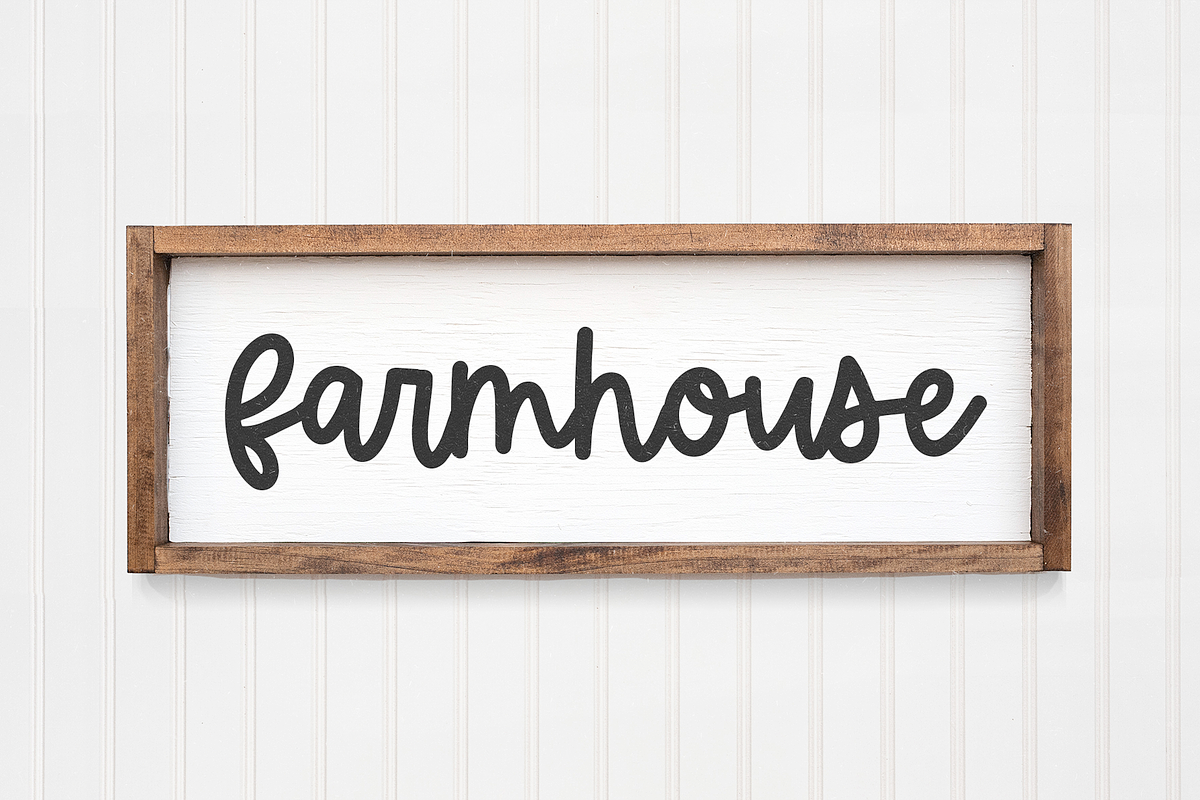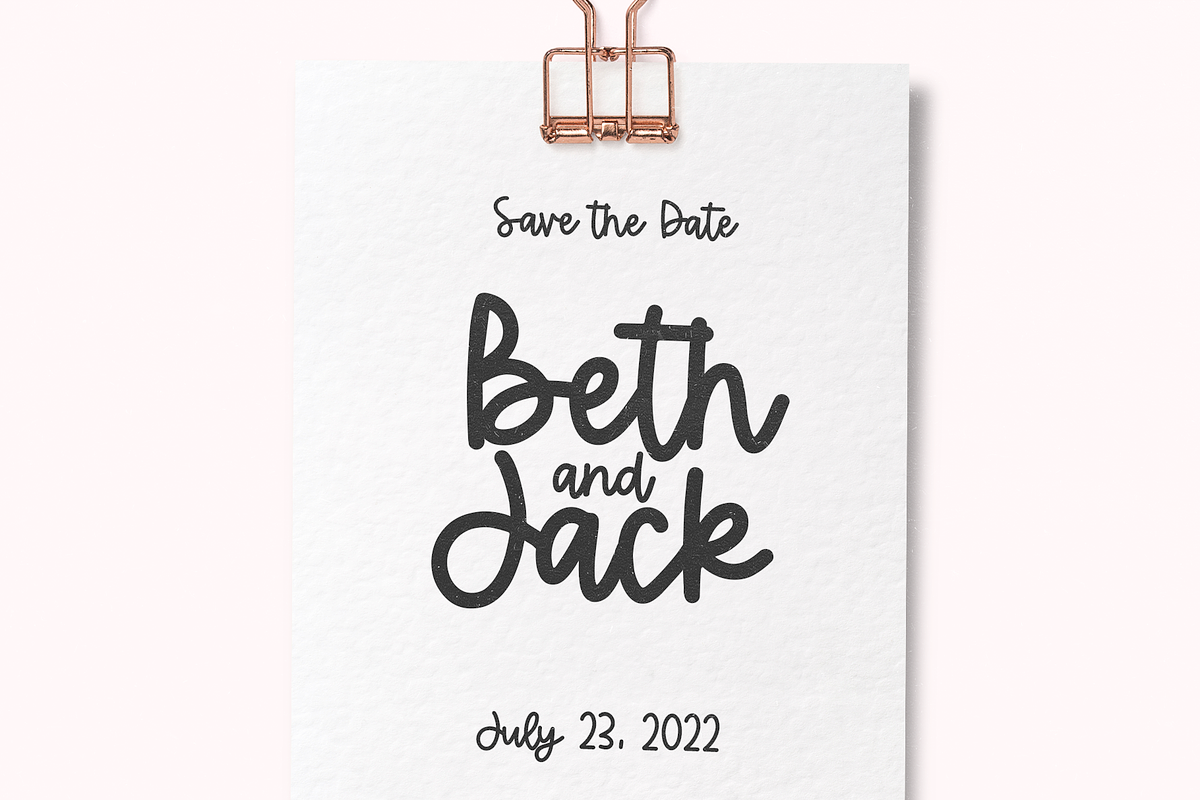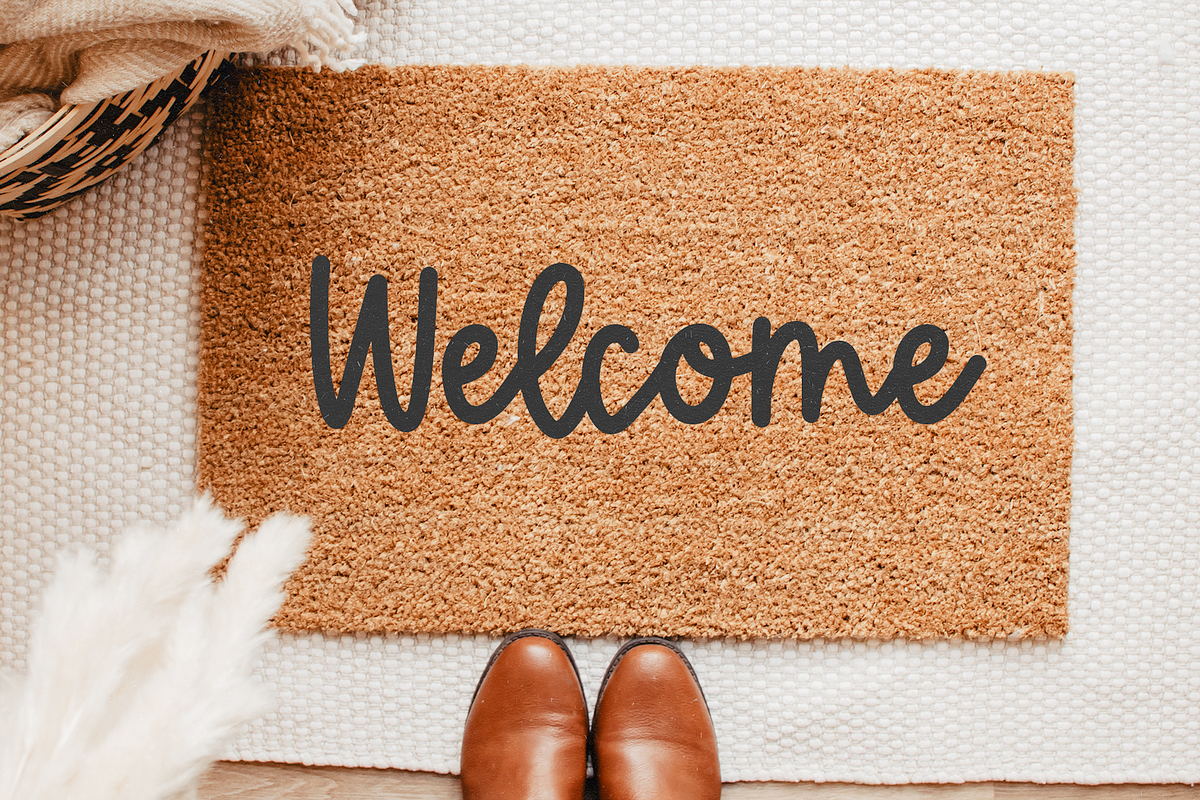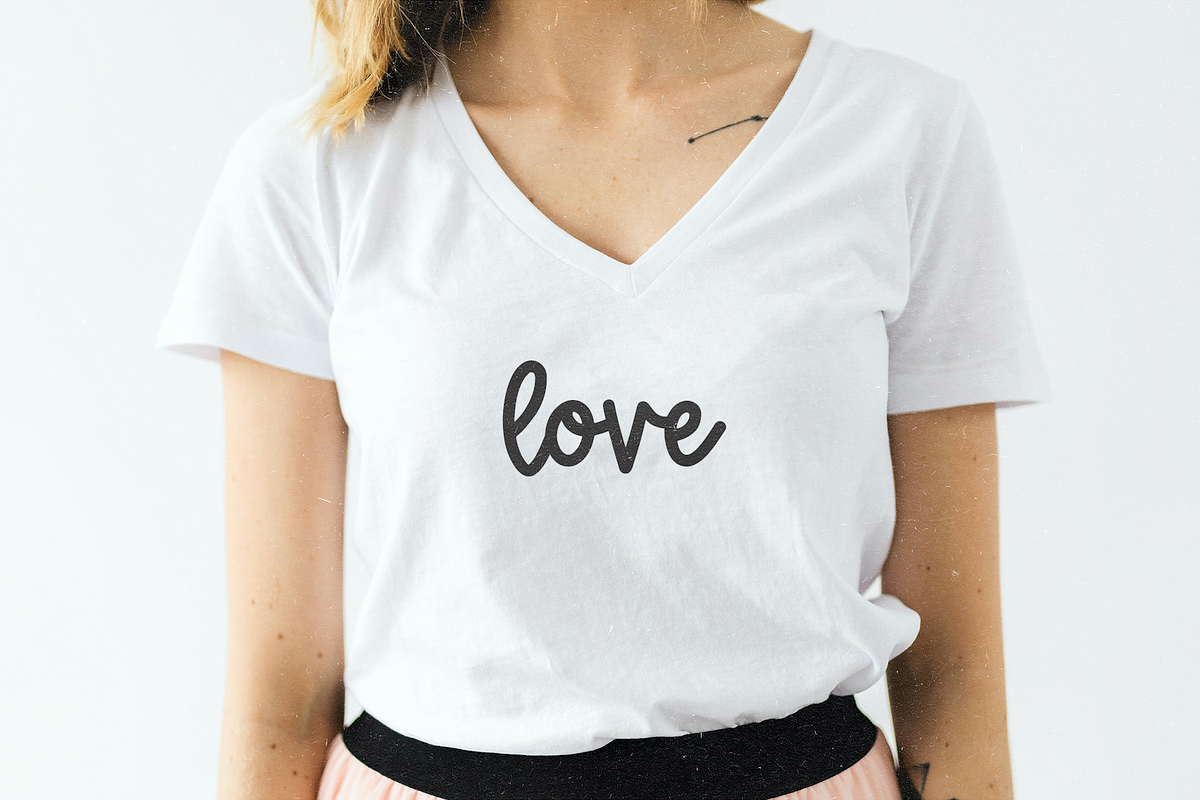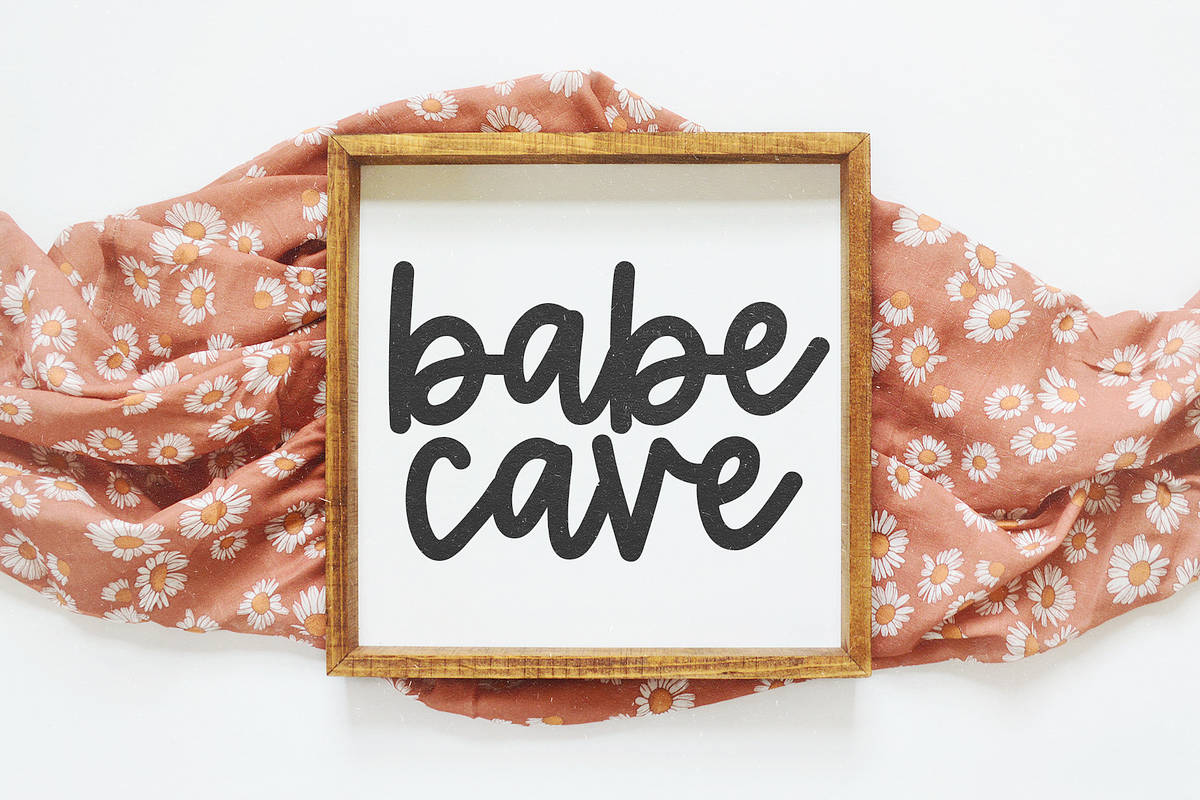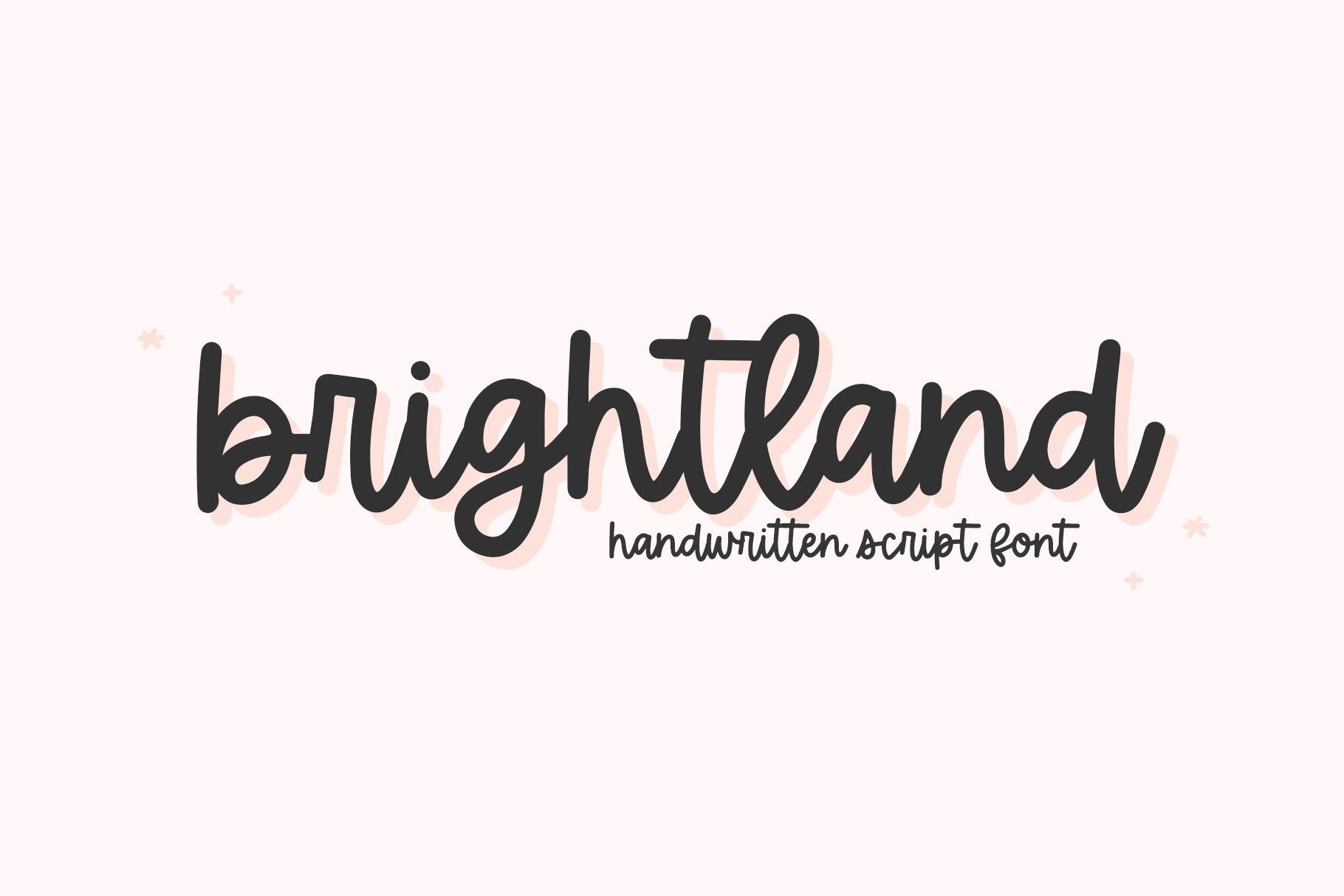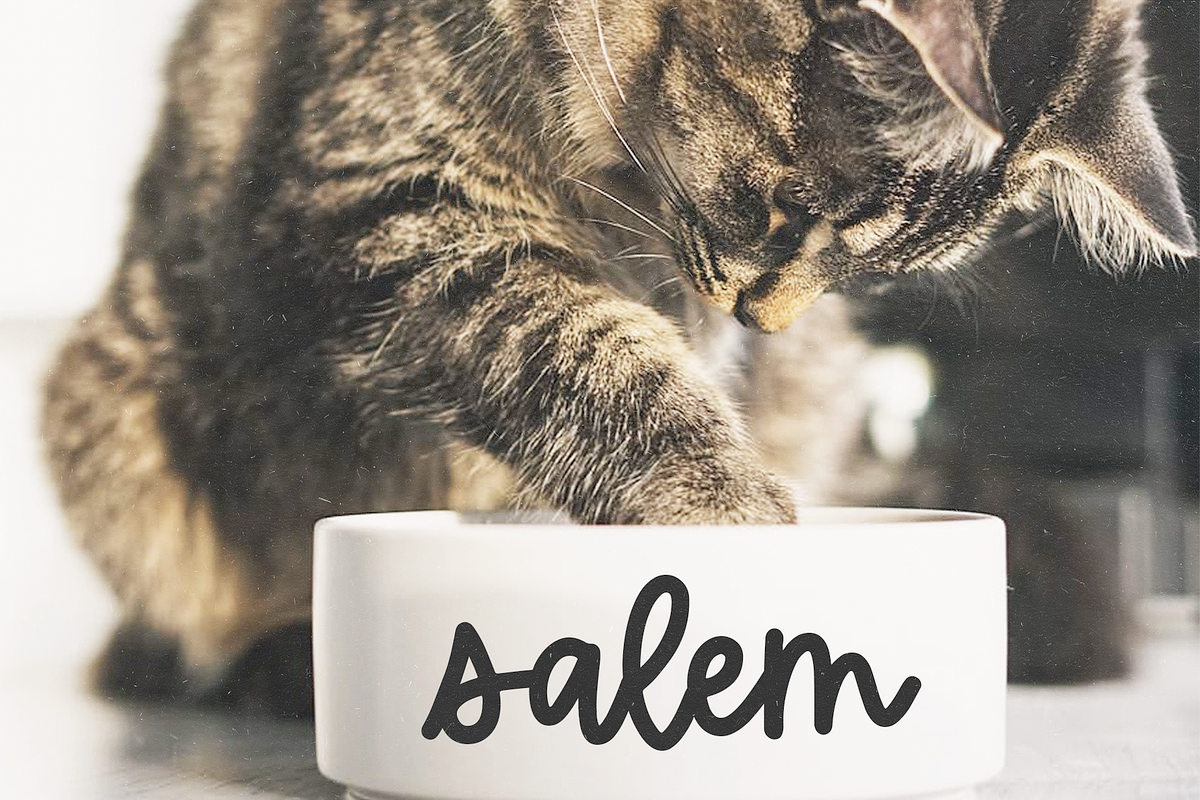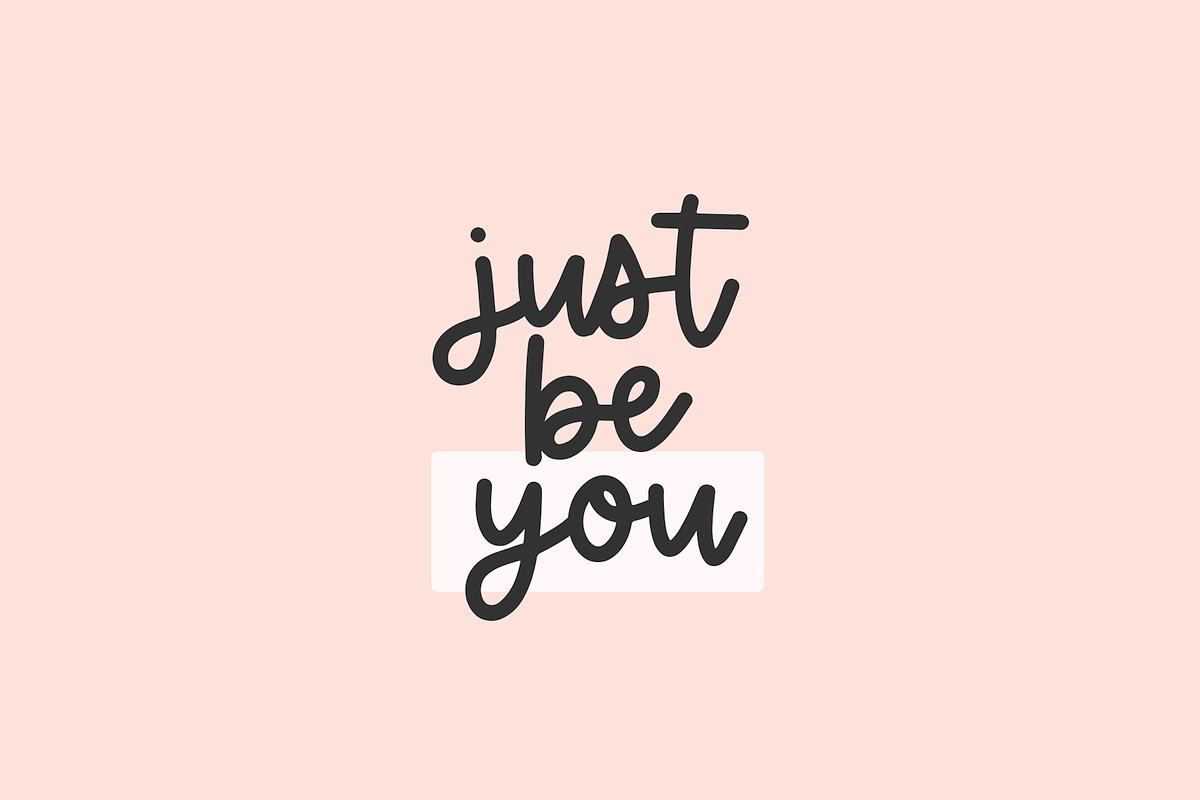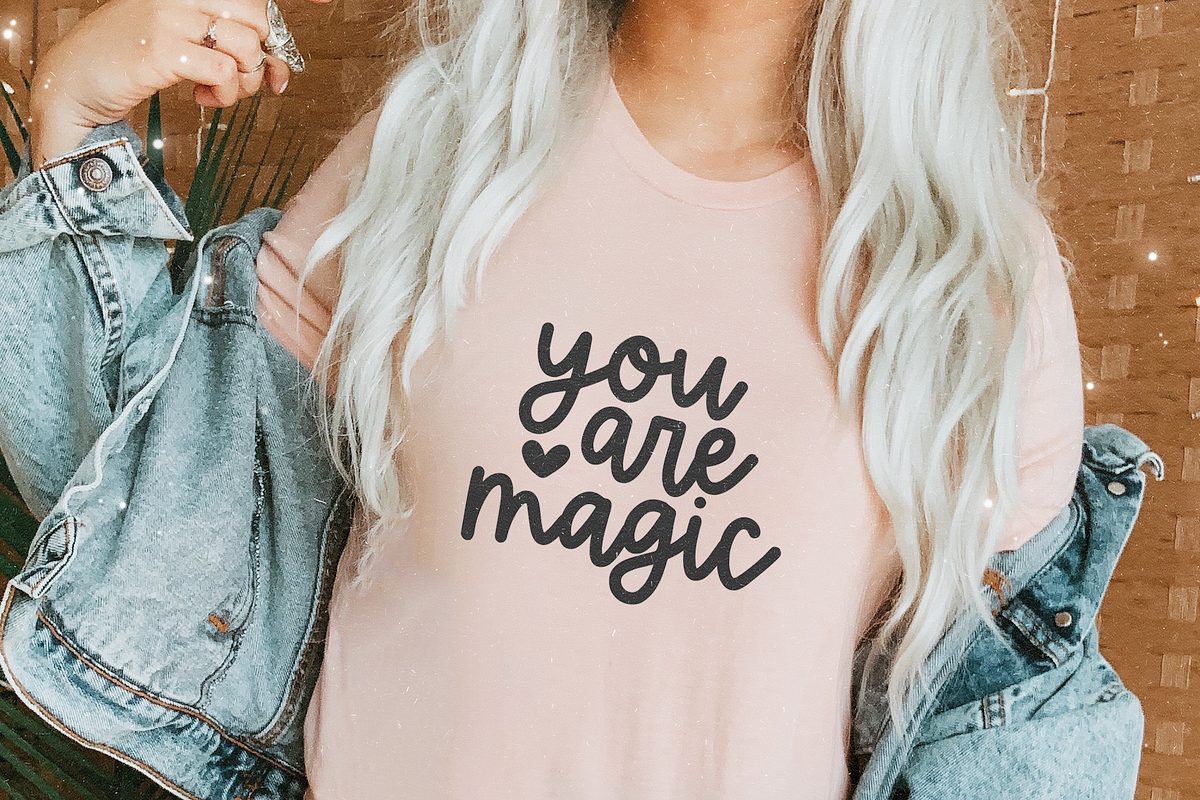
Brightland | Handwritten Script Font
Brightland is a cute handwritten script font in a monoline style.
This font is perfect for all of your craft projects, shirts, stickers, procreate, logos, branding, social media, quotes, prints and more!